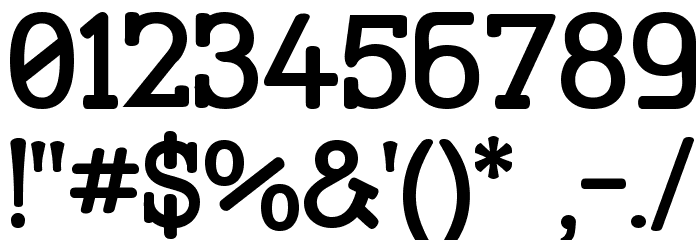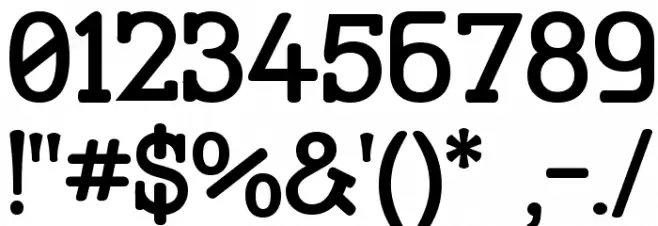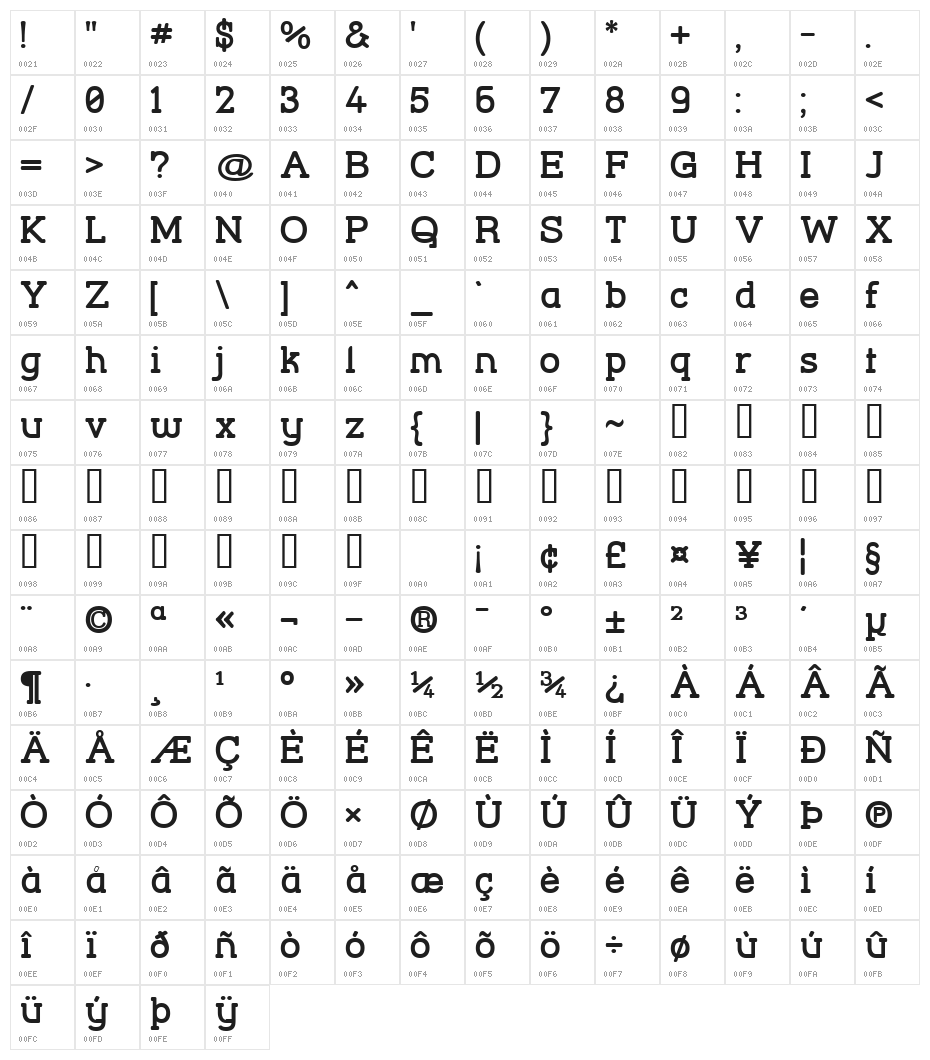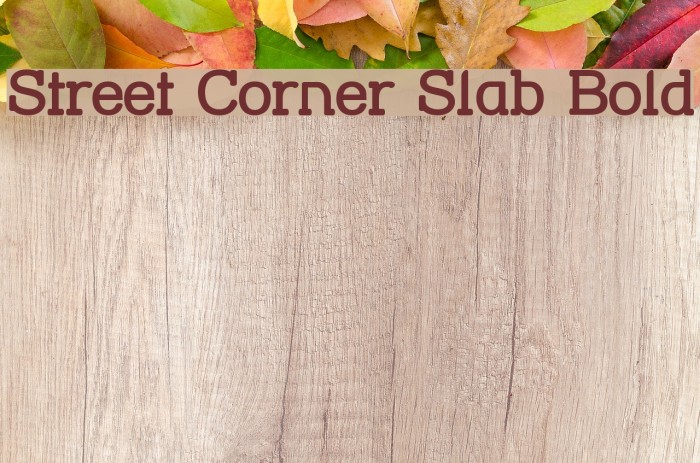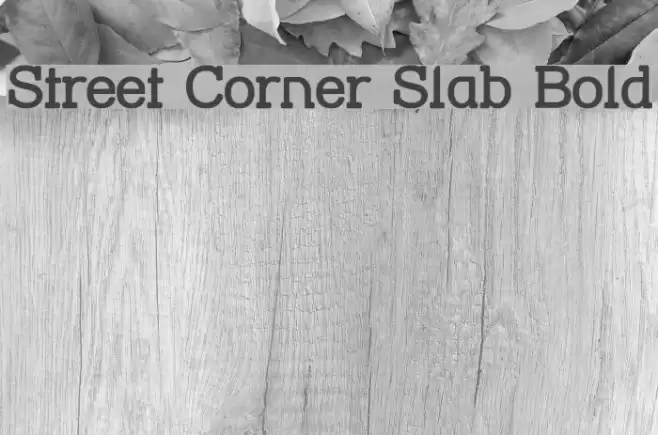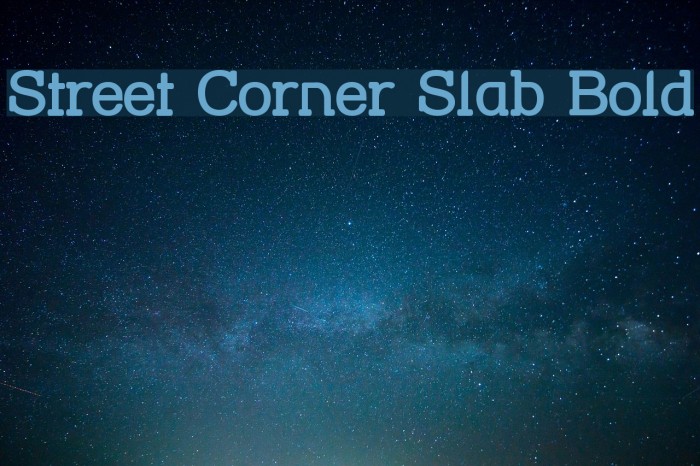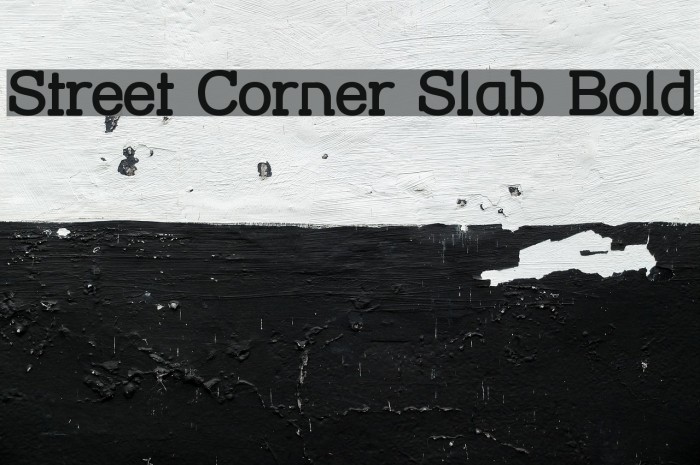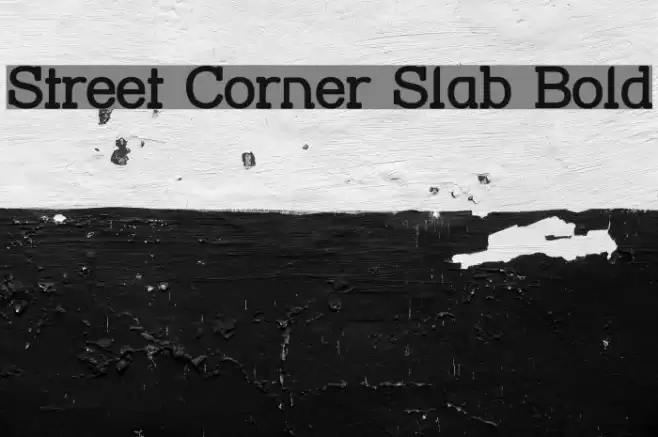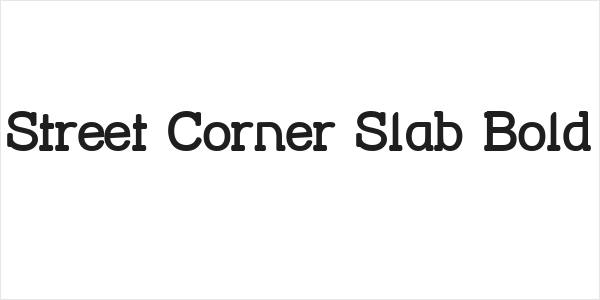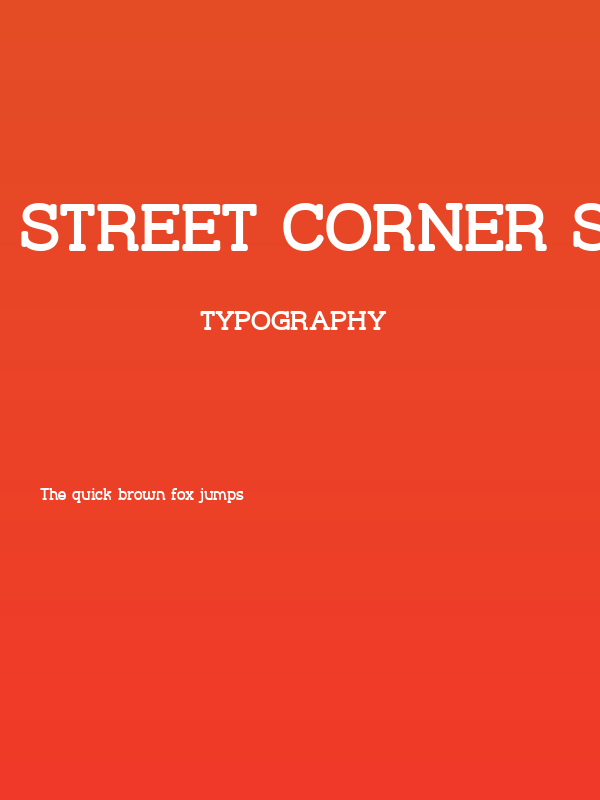
Street Corner Slab Bold Font
Street Corner Slab Bold Description
This font features a bold and robust slab serif style, characterized by thick, block-like serifs that give it a strong and assertive appearance. The uppercase letters are uniformly wide, providing a sense of stability and balance, while the lowercase letters maintain a consistent weight, enhancing readability. The numerals are clear and distinct, with a uniform stroke width that complements the overall boldness of the font. Special characters are well-defined, adding versatility to its use. The font's design is both modern and timeless, making it suitable for a variety of applications where a bold statement is needed.
| Proposed Projects | Ideal for headlines, posters, branding, and any project requiring a bold, impactful typeface. |